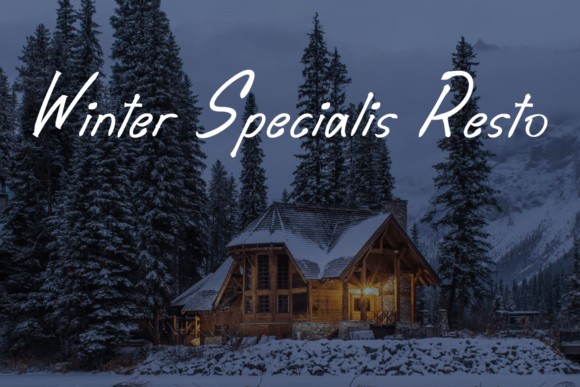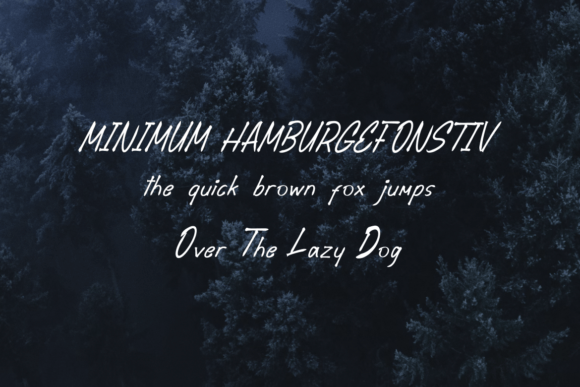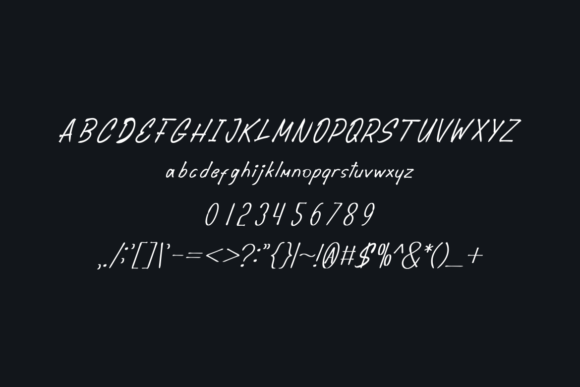
Introduction to Gheb Resto Font
Remember that moment when you’re working on a creative project and you just can’t seem to find the perfect font to give it that extra oomph? The struggle is real, but what if I told you that I’ve found a game-changer for you? Introducing the Gheb Resto Font, a modern brush font that’s about to revolutionize your design game.
With its smooth, flowing lines and stylish, relaxed look, the Gheb Resto Font is the perfect addition to any design. Whether you’re working on a free download project or a high-quality commercial design, this font is sure to bring a touch of sophistication and creativity to your work. And the best part? It’s a valuable resource for designers who want to take their designs to the next level without sacrificing quality or style.
Key Features of Gheb Resto Font
- Unique, hand-drawn design suitable for creative projects and artistic expressions.
- High-quality design with precise details and smooth lines, making it perfect for print and digital applications.
- Perfect for designers and artists working on creative projects, including logos, typography, and graphics.
Honest Review: Gheb Resto Font
I recently stumbled upon the Gheb Resto Font, and I must say it’s been a game-changer for my creative project. The font’s unique style and high quality make it an excellent addition to any design resource.
- Unique and stylish design
- High-quality and professional appearance
Limitations: ⚠️ The font may not be suitable for all design projects, particularly those requiring a more conservative or traditional aesthetic. Additionally, the font’s unique style may be overwhelming for some users.
Overall, I’m impressed with the Gheb Resto Font. Its high quality and versatility make it an excellent addition to any design resource. With its free download and transparent background, it’s a must-have for any creative project.
Tips for Getting the Most Out of Gheb Resto Font
For a high-quality design, use the Gheb Resto Font on a transparent background. This will give your design a clean and modern look. You can also experiment with different font sizes and colors to create a visually appealing effect.
The Gheb Resto Font is ideal for use in creative projects, such as logos, brochures, and business cards. Its unique design makes it perfect for designers looking for a free download that adds a touch of elegance to their design resource.